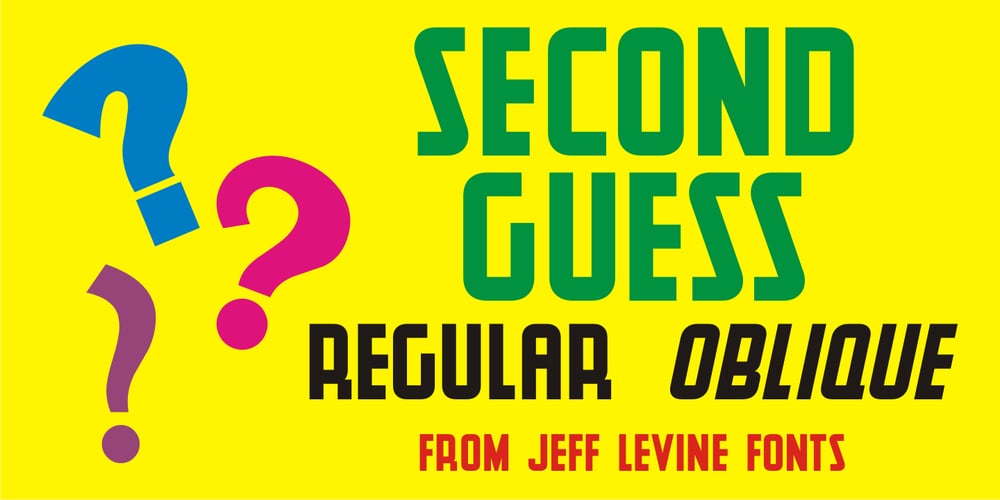
Second Guess JNL Font Family was designed by Jeff Levine and published by Jeff Levine. Second Guess JNL contains 2 styles and family package options. The cover of the 1934 sheet music for “Your Guess Is Just as Good as Mine” offers up another hand lettered Art Deco sans with a classic period look. The square-ish lettering with rounded corners of Second Guess JNL is available in both regular and oblique versions.